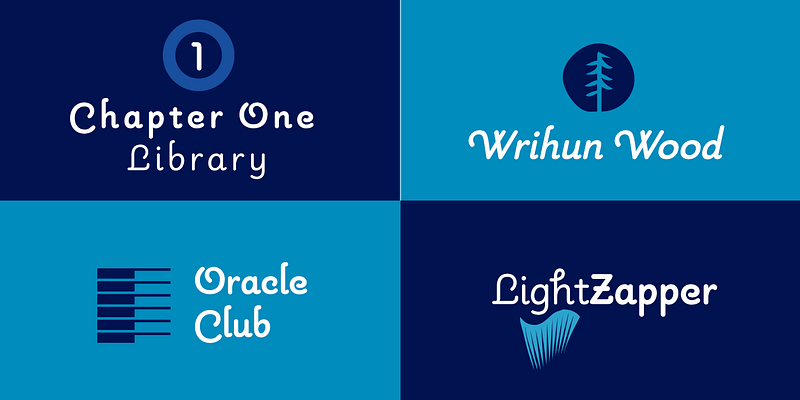
Pauline specimen
Pauline
Pauline is a sans serif with a strong influence from retro scripts. Pauline is a geometric face formed with slow and deliberate, rounded brush strokes.